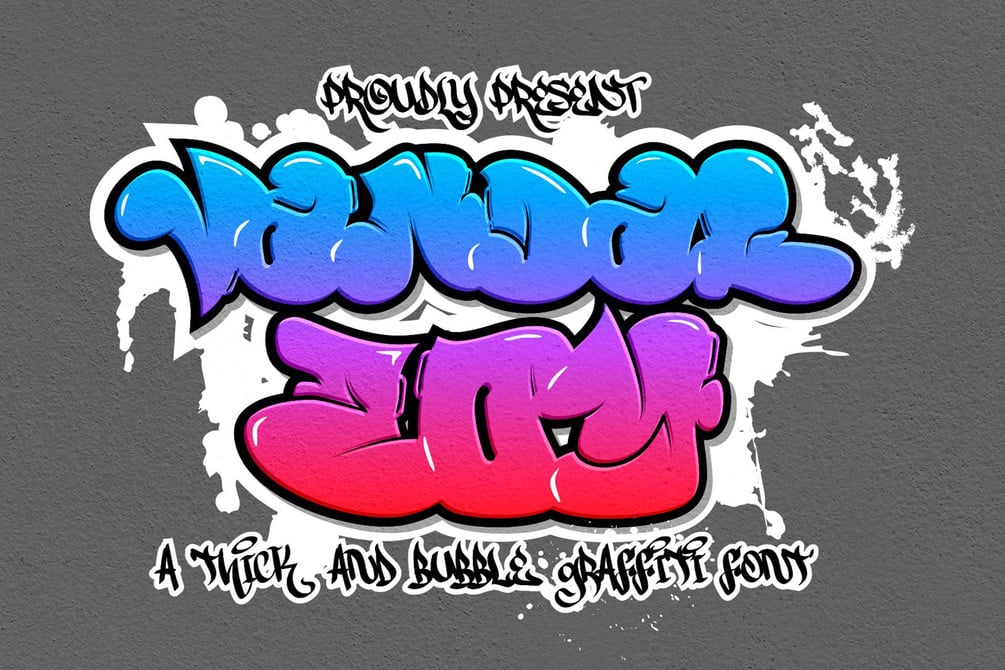
Vandal Zoy is a Thick font with a graffiti style and bubble looks. It will elevate a wide range of design projects to the highest level, be it branding, headings, wedding designs, invitations, signatures, logotype, wall art illustration, apparel, labels, and much more!